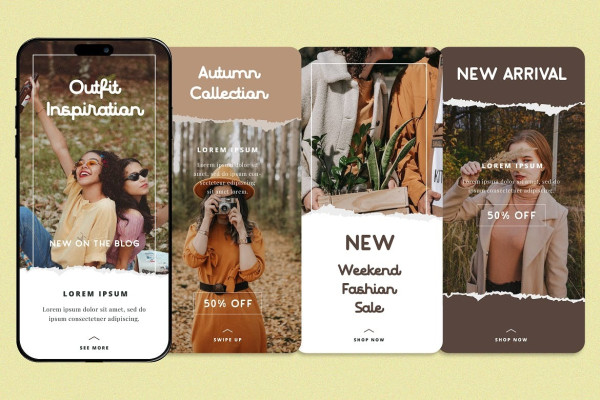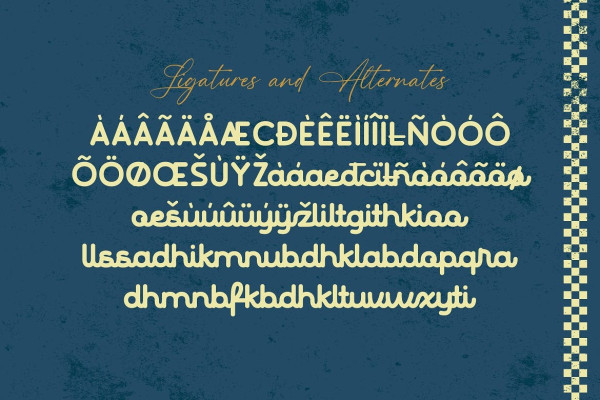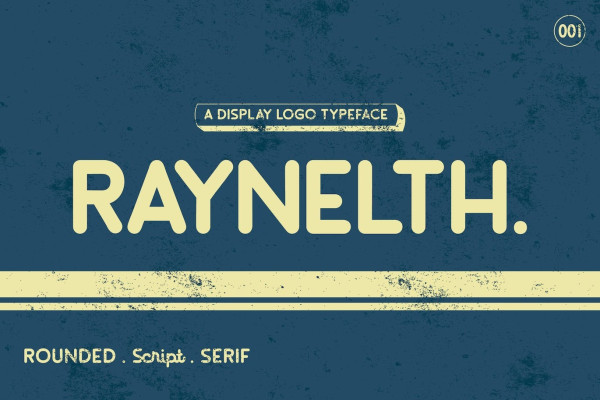
Raynelth Font
Raynelth Font – A Logo Display Font. From logo design to digital and print media, Raynelth makes a memorable impression. Give it a try and enjoy all the benefits of a truly captivating font.